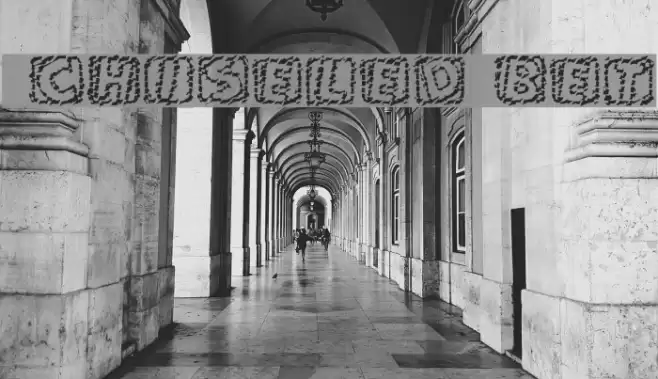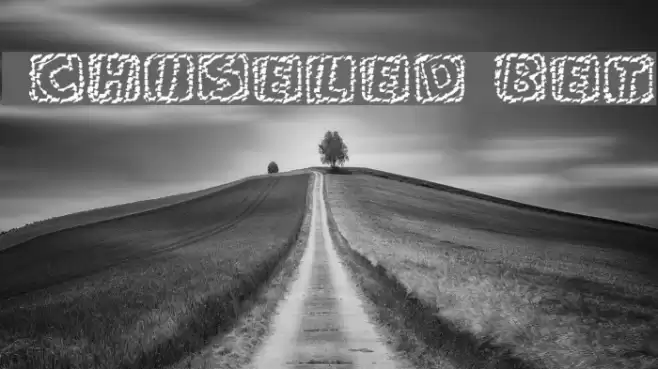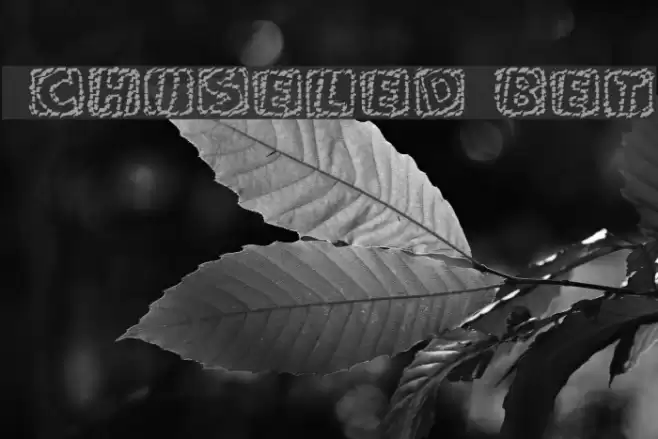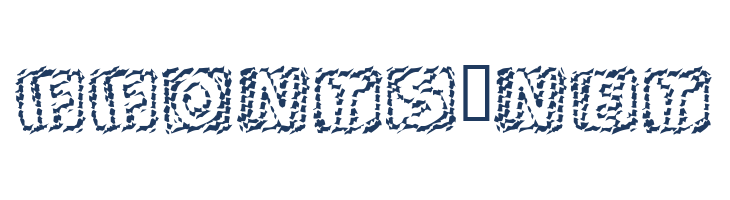
101! Chiseled 'Bet Font
101! Chiseled 'Bet Description
This font features a bold, chiseled appearance with a textured, hand-drawn effect. Each character is enclosed within a square, giving it a structured and uniform look. The design incorporates a rough, sketch-like quality, adding a sense of dynamism and creativity. The uppercase and lowercase letters maintain a consistent style, with the numbers and special characters following the same aesthetic. This font's unique style makes it stand out, offering a visually engaging experience.
A bold, chiseled font with a textured, hand-drawn effect from Uncategorized fonts.
- Proposed Projects: Ideal for creative projects such as posters, album covers, and branding materials that require a distinctive and artistic touch.